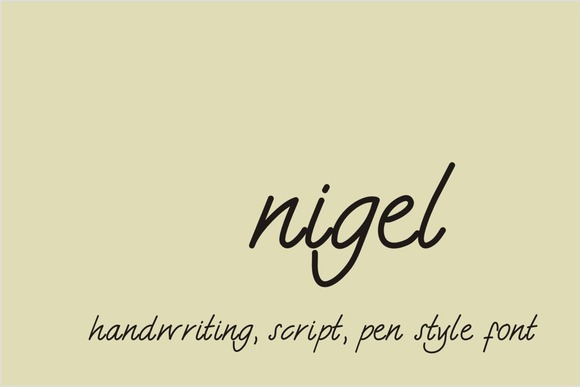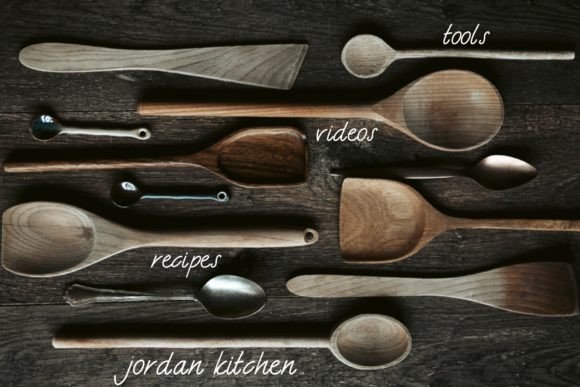
Introduction to Nigel Font
As a designer, there’s nothing quite like the rush of inspiration that comes from a blank page and a pen in hand. The scratch of the nib on paper, the flow of ideas, and the evolution of a concept into a beautiful piece of art. It’s this very feeling that the Nigel Font captures, with its elegant cursive italic script and pen-style aesthetic.
Nigel Font is more than just a design resource – it’s a key to unlocking your creativity and bringing your ideas to life. Whether you’re working on a high-profile project or a personal creative endeavor, this versatile font is sure to deliver. With its simple yet refined look, Nigel Font is perfect for designers who crave a touch of sophistication and elegance in their work.
Nigel Font
Honest Review: Nigel Font
I recently came across the Nigel Font and was impressed with its clean and modern design. As a designer, I’m always on the lookout for high-quality fonts that can elevate my creative projects.
- ✨ Easy to use: The Nigel Font is incredibly easy to use, with a transparent background that makes it perfect for creating stunning designs.
- ✨ Versatile: This font is incredibly versatile and can be used for a wide range of creative projects, from business cards to websites.
- ⚠️ Limited styles: While the Nigel Font is available in a few different styles, it’s not as extensive as some other font options.
- ⚠️ Not ideal for small text: Due to its clean design, the Nigel Font may not be the best choice for small text or intricate designs.
Overall, I’m impressed with the Nigel Font and would definitely recommend it to fellow designers. It’s a great addition to any design resource library and can help take your creative projects to the next level.
Nigel Font
Nigel Font is a versatile and high-quality design resource that can be used for various creative projects. Its transparent background makes it easy to customize and integrate into different designs.
Tips for Getting the Most Out of Nigel Font
To get the most out of Nigel Font, consider the following tips:
- Use Nigel Font in combination with other design elements to create a cohesive look.
- Experiment with different font sizes and styles to add visual interest.
- Take advantage of Nigel Font’s transparent background to create a seamless design.
Nigel Font is commonly used in a variety of creative projects, including:
- Graphic design and branding.
- Web design and development.
- Print design and marketing materials.